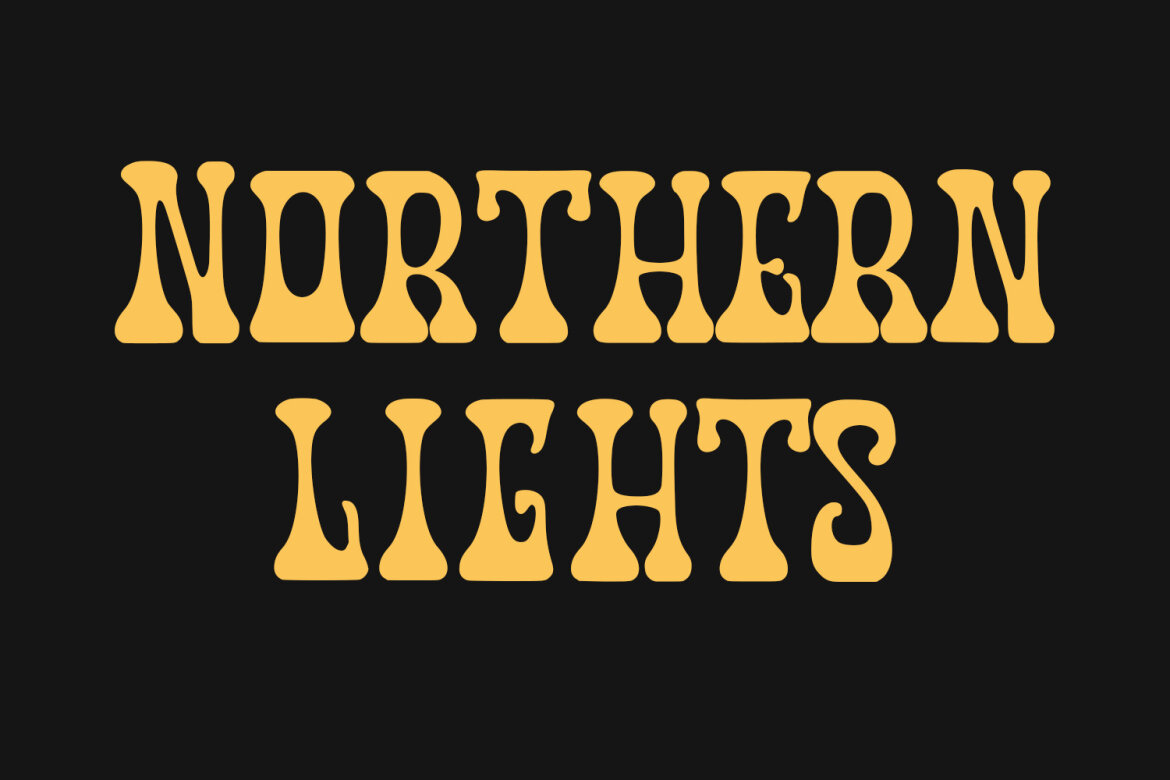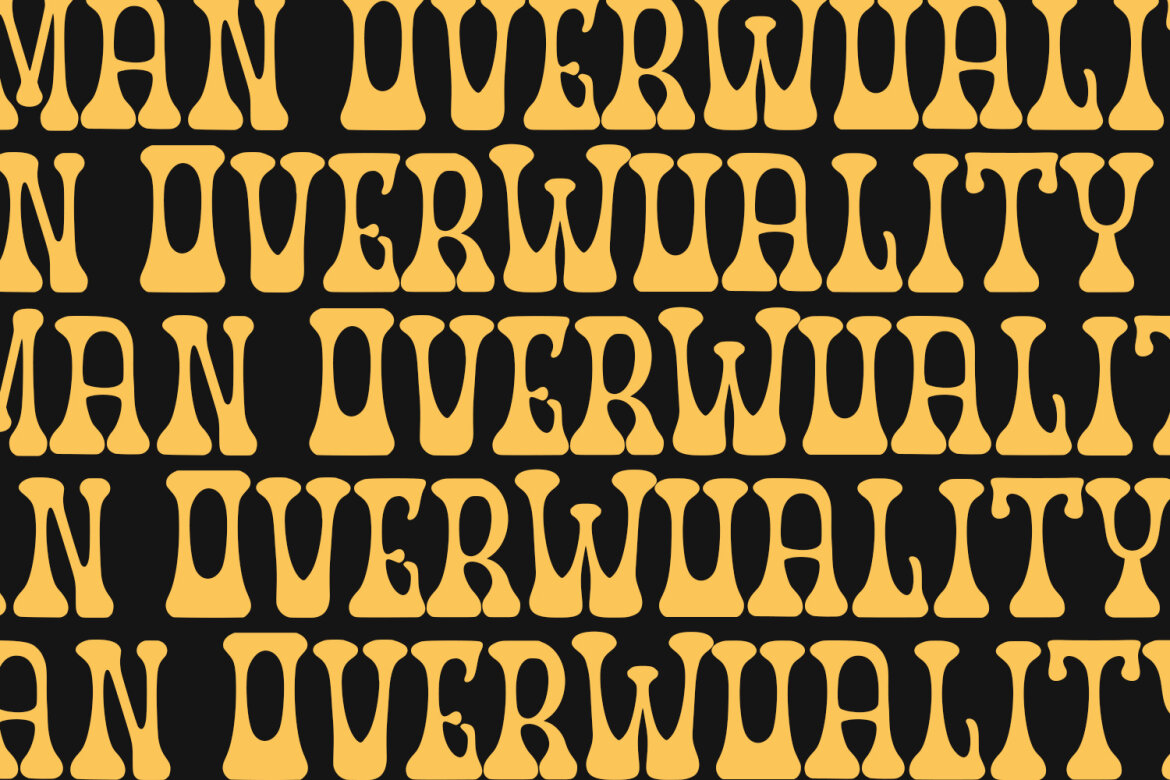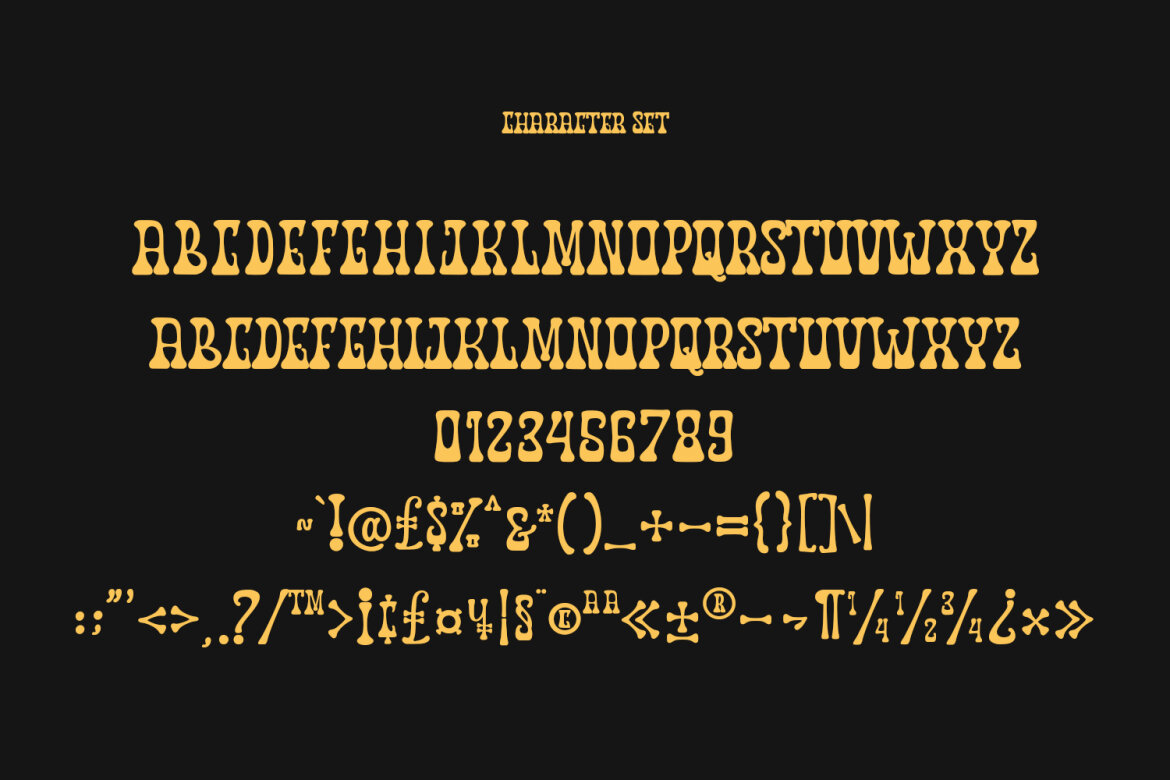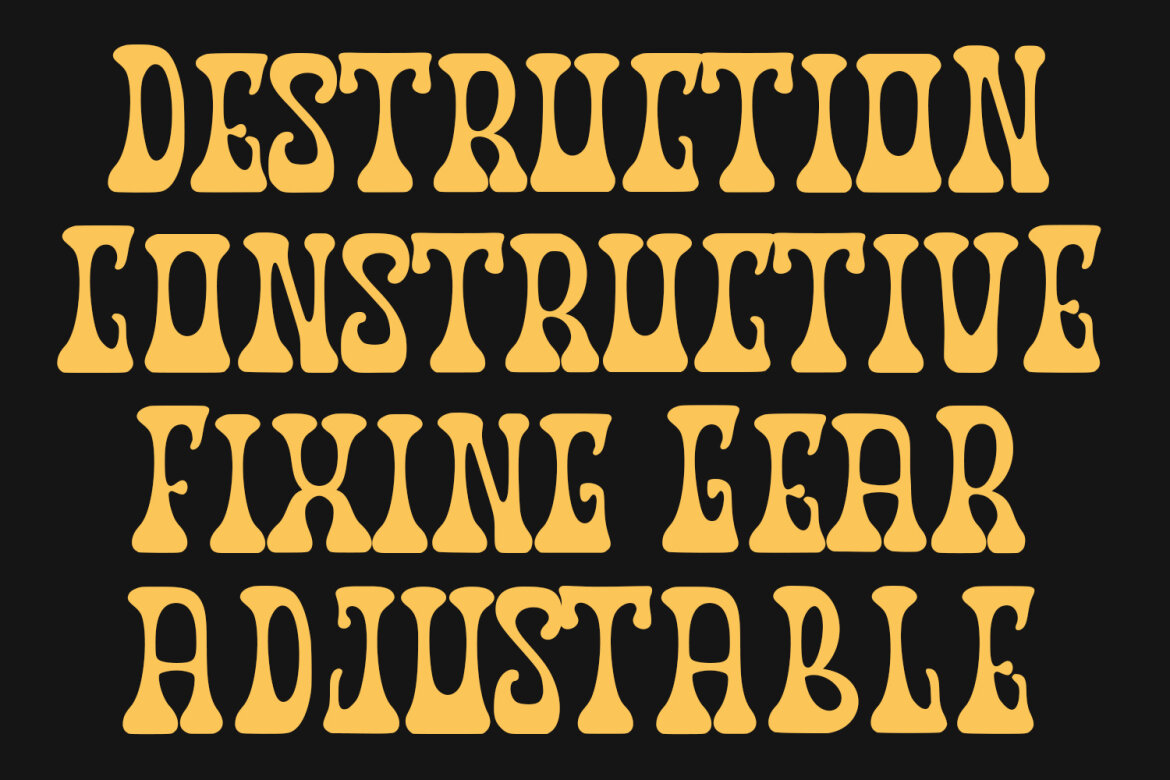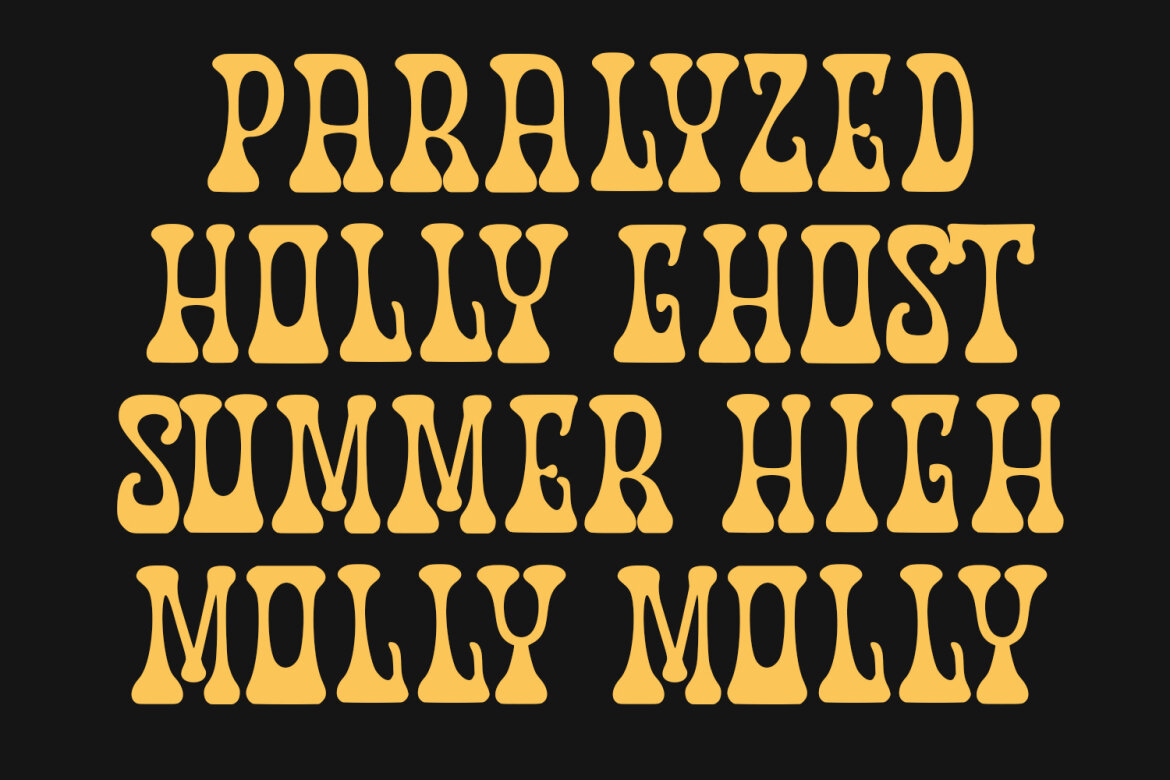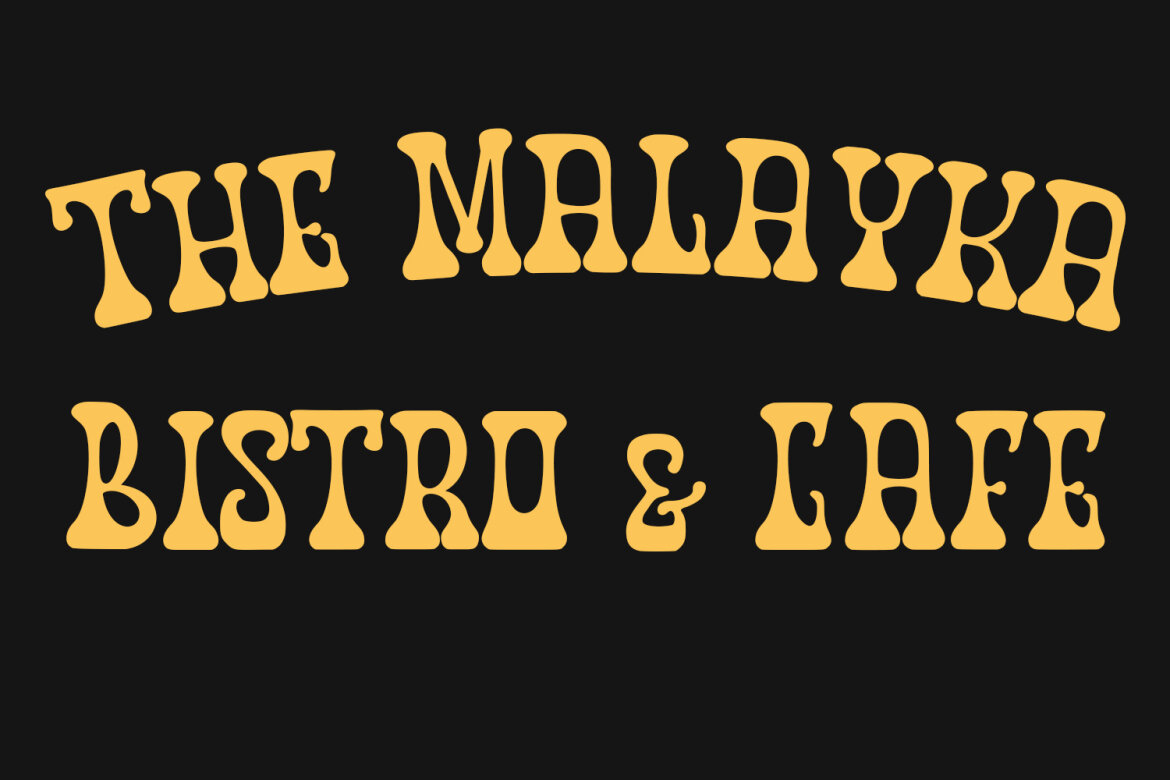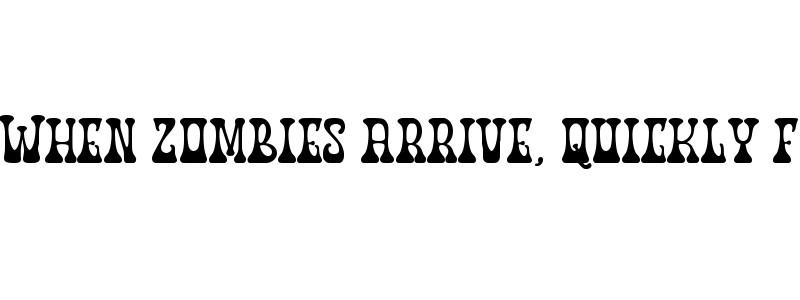
Moka Natives FREE Groovy Font
Moka Natives is a decorative display font. With high contrast stroke, fun character with a bit of ligatures and alternates. To give you an extra creative work. Moka Natives font support multilingual more than 100+ language. This font is good for logo design, Social media, Movie Titles, Books Titles, a short text even a long text letter and good for your secondary text font with sans or serif. Make a stunning work with Moka Natives font.